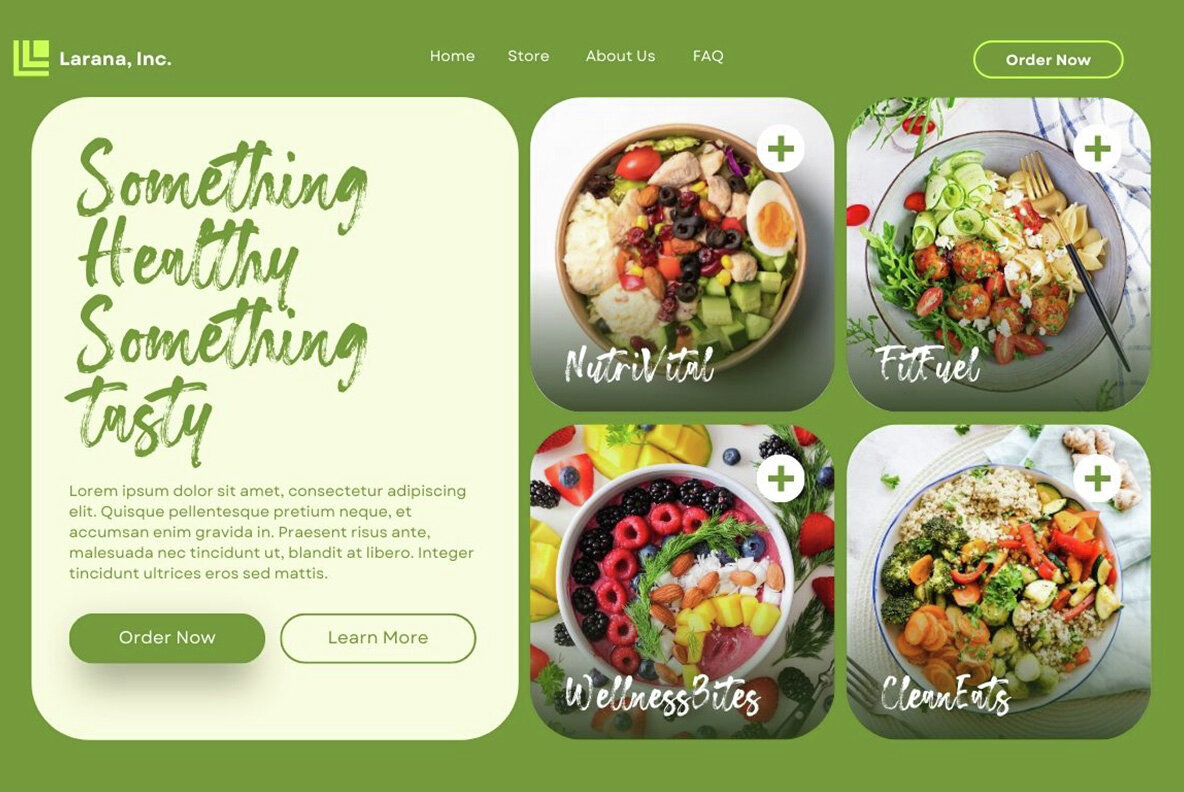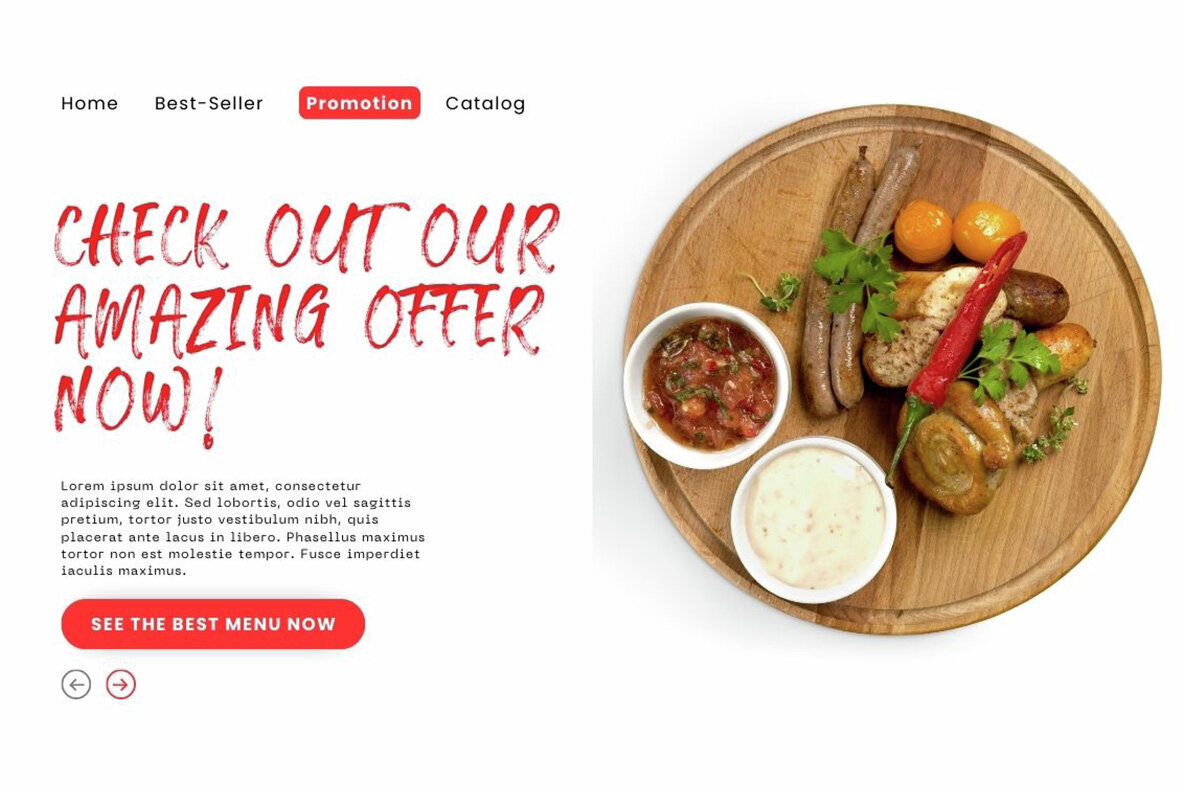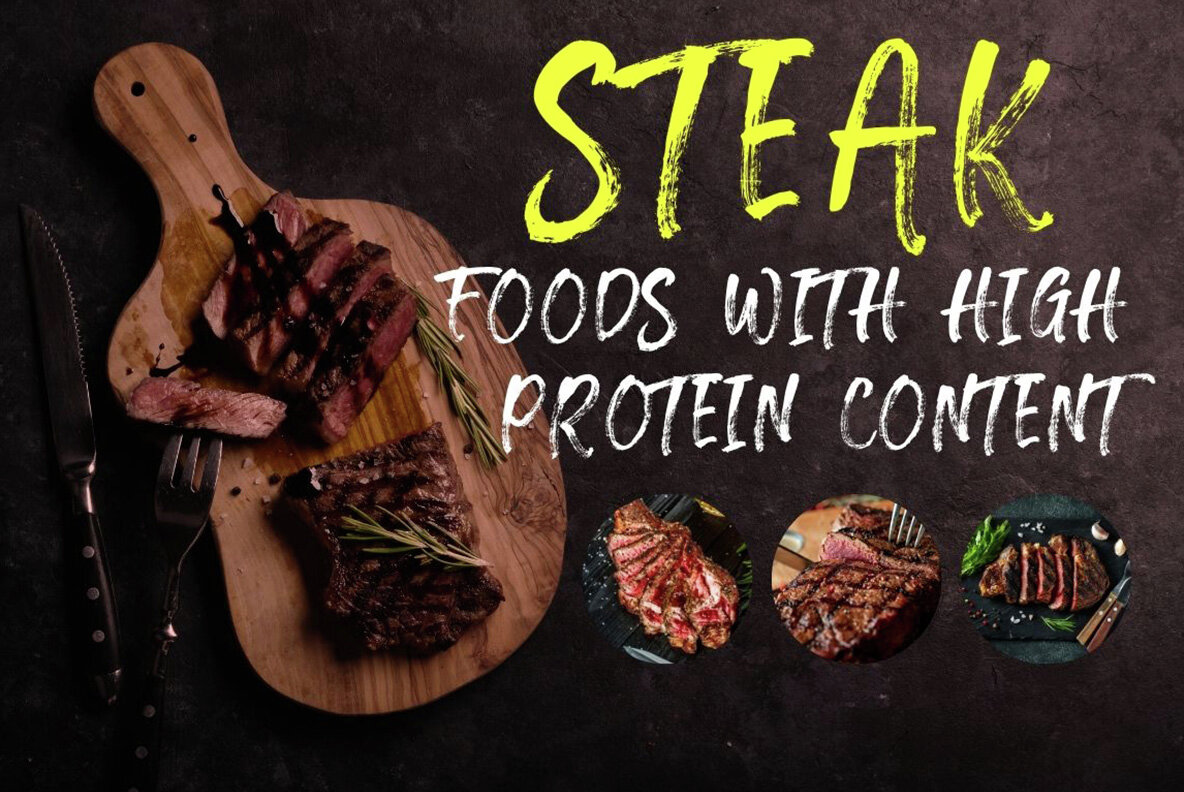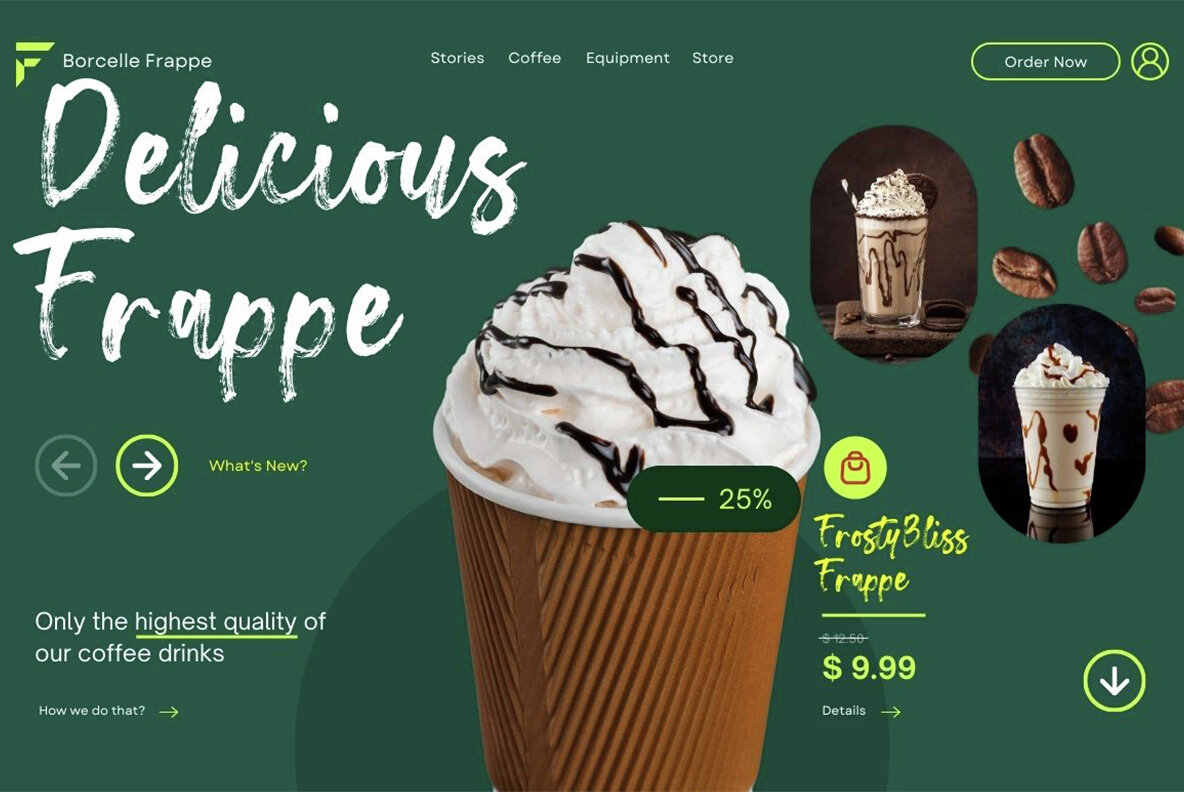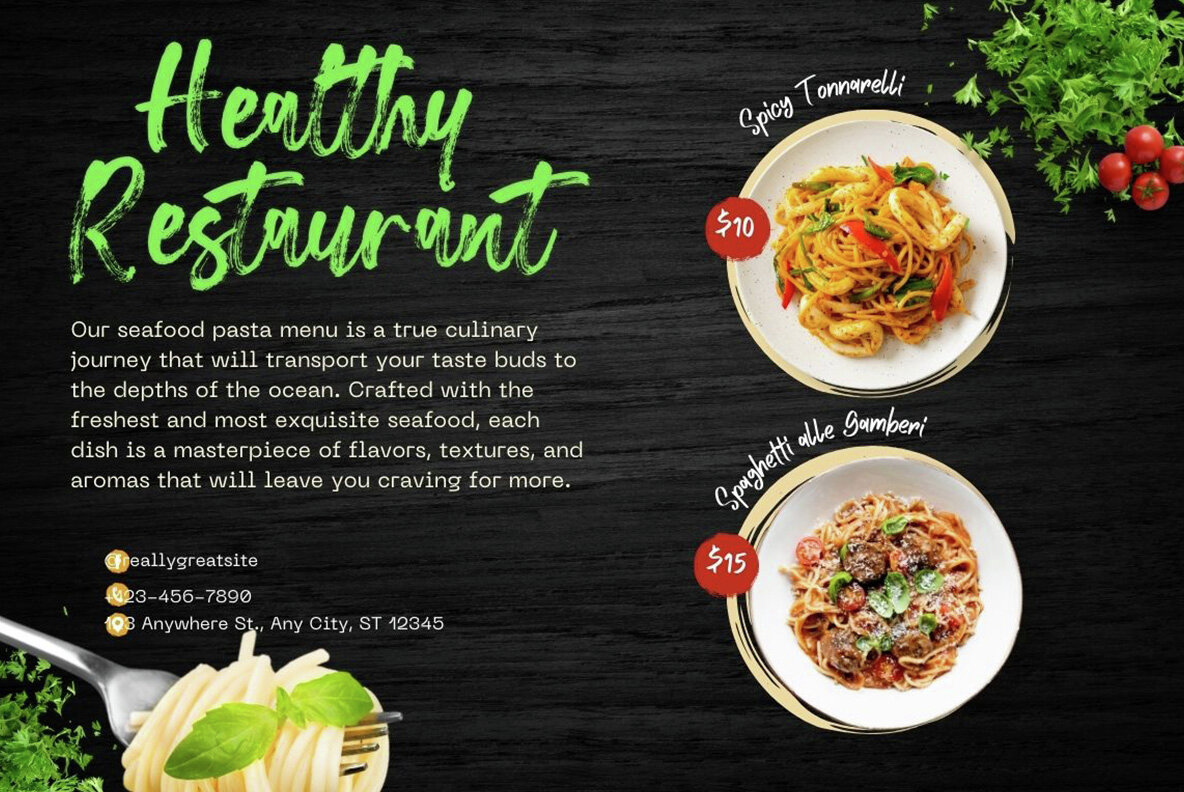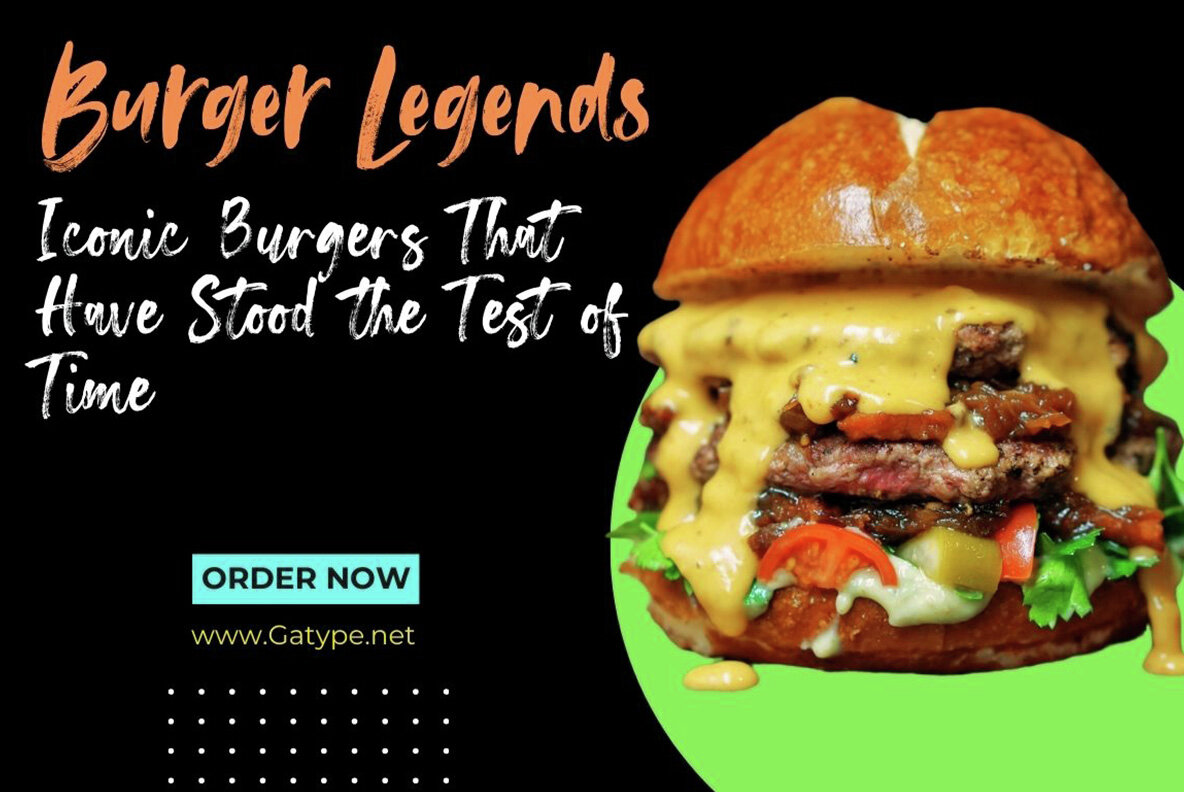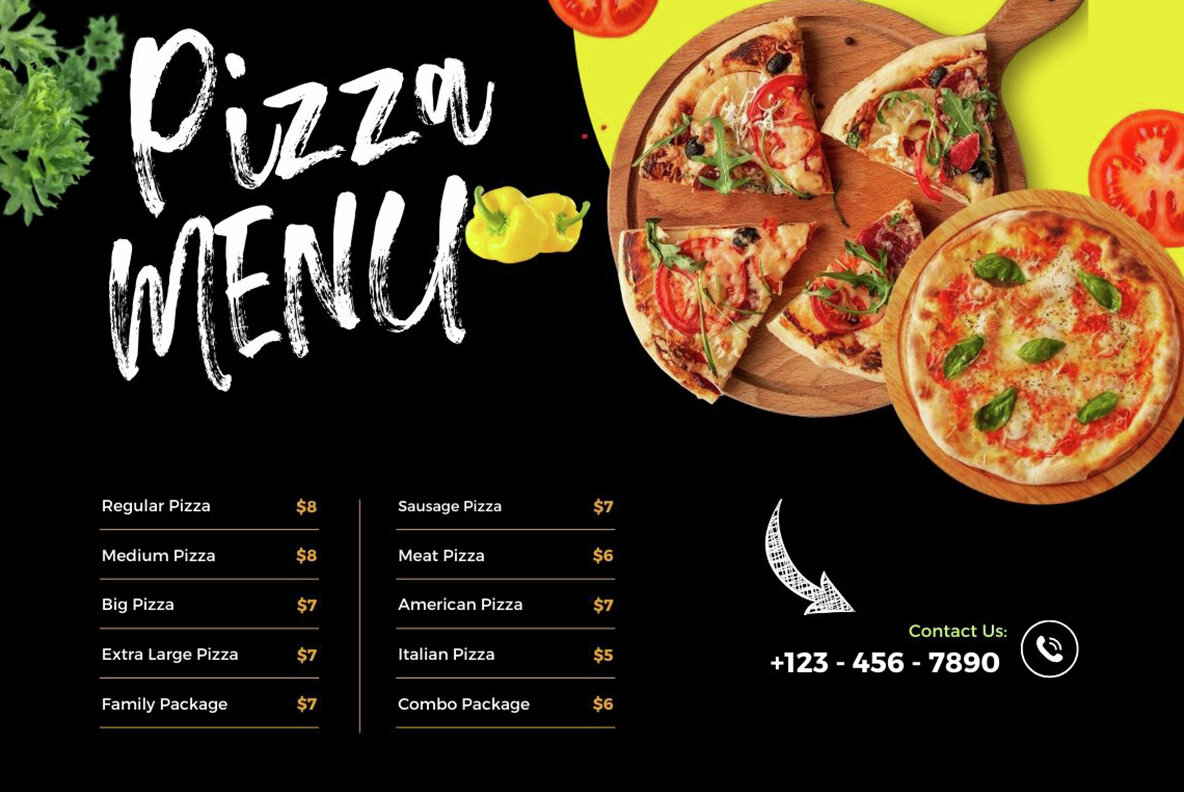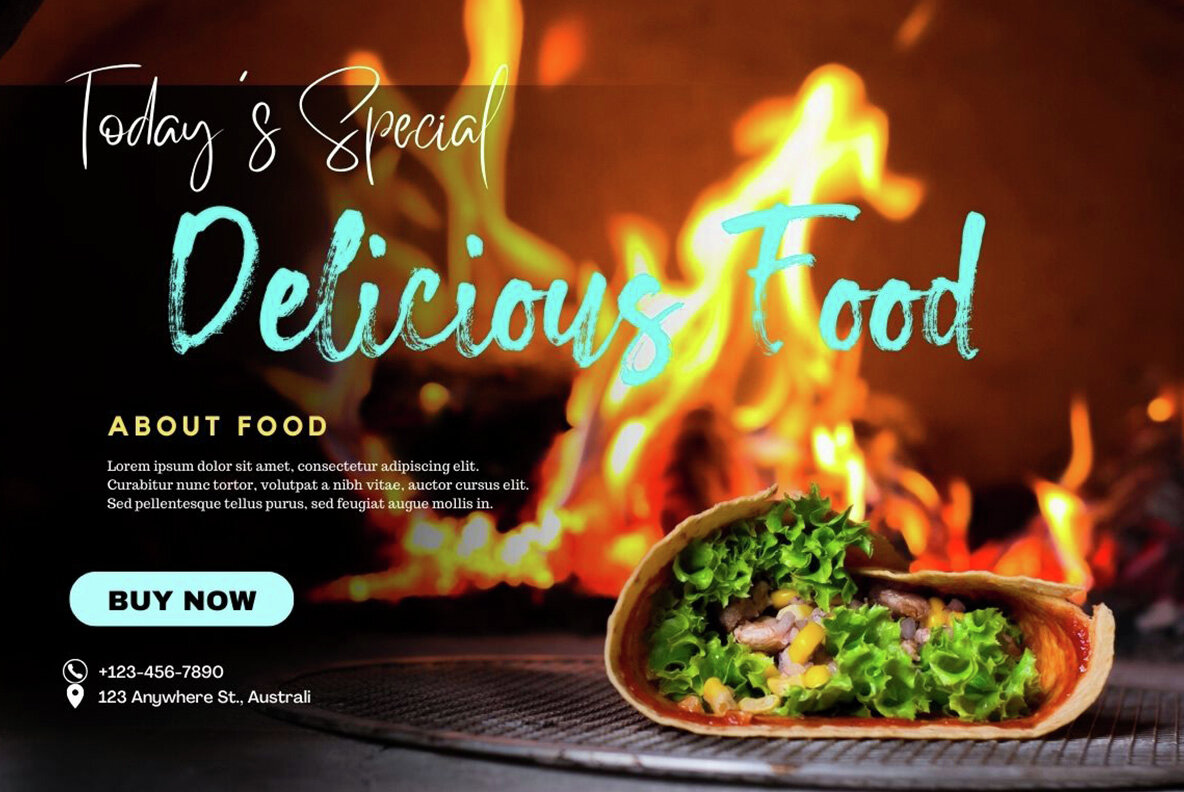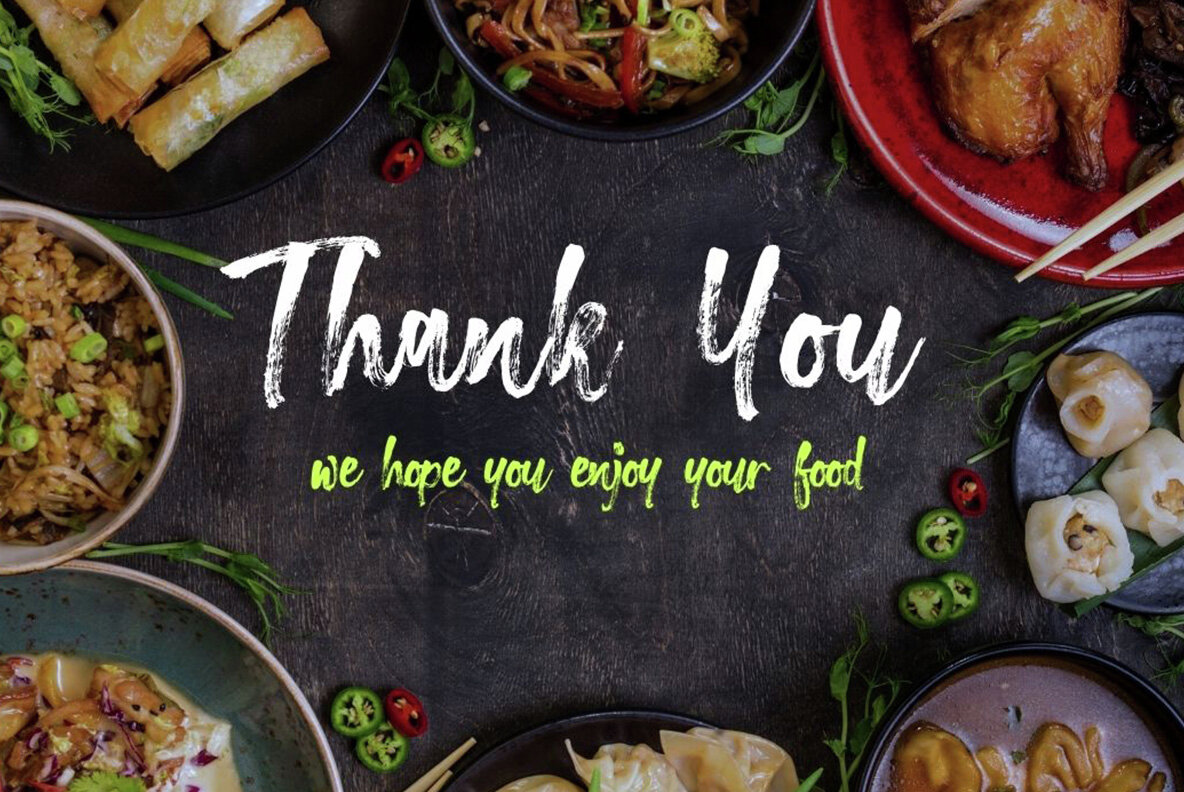
Melora Font
Melora Regular
The Melora font is an expressive brush-style typeface that brings an artistic handwritten aesthetic to your design projects. Its bold forms and uneven edges mimic the swift dynamism of natural brush strokes, making it ideal for creating a relaxed and informal vibe. Whether used in posters, invitations, or creative art projects, Melora captures a sense of spontaneity and authenticity, offering a personal touch that stands out.
Designed for those aiming to evoke creativity and energy, this font excels in projects where a touch of individuality is desired. The distinctive character of Melora’s design makes it suitable for environments that celebrate naturalness and creativity, ensuring your work remains memorable and engaging. Perfect for designers looking to convey a unique, dynamic feel, this typeface contributes a spirited and informal flair to diverse applications.